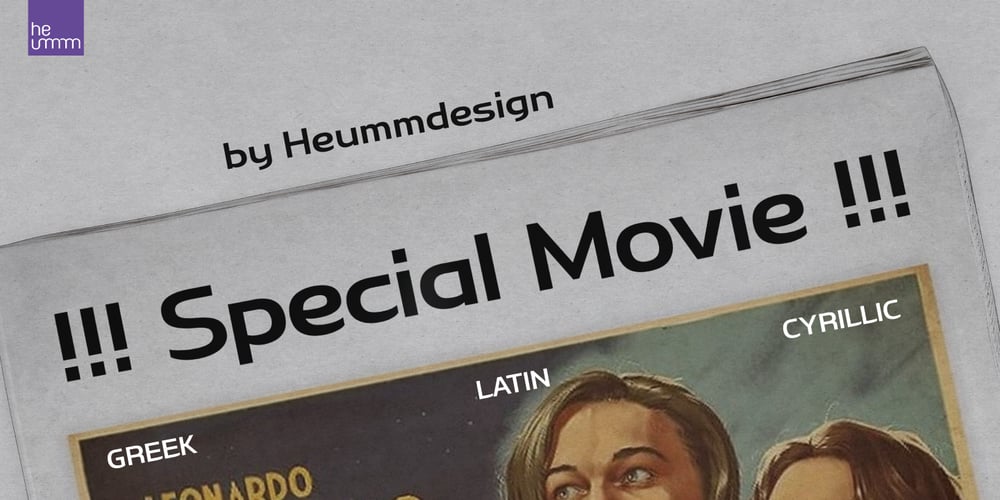
HU Specialmovie Font Family was designed by Haerin Lee and published by Heummdesign. HU Specialmovie contains 2 styles and family package options. HU Specialmovie is a retro, wide square typeface, characterized by streamlined, narrow stroke ends. The first consonants are designed to be large with full modules to improve readability. The grapheme ‘O’, which is the face of the font, is in the form of a square in harmony with straight lines and curves, expressing a solid and simple feeling overall.